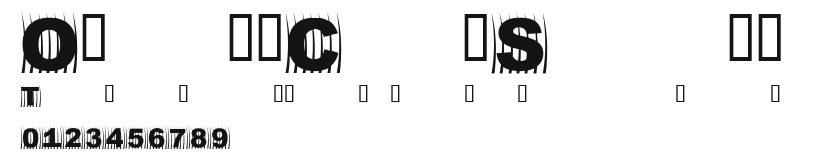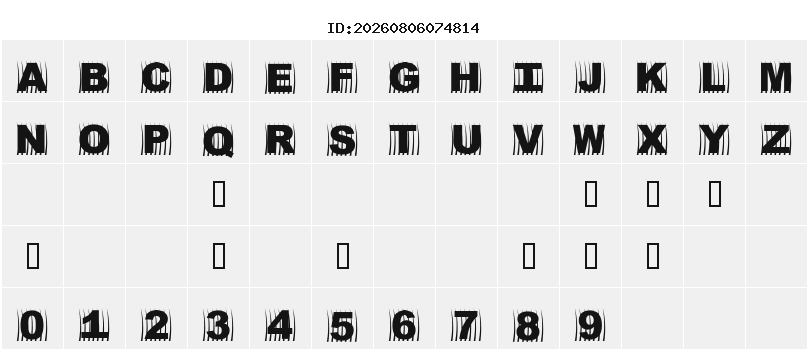
• Font Name: OszillCapsSecond
• Font ID: Macromedia Fontographer 4.1.3 OszillCapsSecond
• Full Font Name: OszillCapsSecond
• Version: Macromedia Fontographer 4.1.3 02.01.2002
• PostScript Name: OszillCapsSecond
• Character Count: 83
• Copyright: © Manfred Klein 1. 2002 all rights reserved
About OszillCapsSecond.ttf
OszillCapsSecond.ttf is a modern, elegant sans-serif font designed for ultimate readability and visual harmony. Perfect for branding, headlines, web design, and print materials.